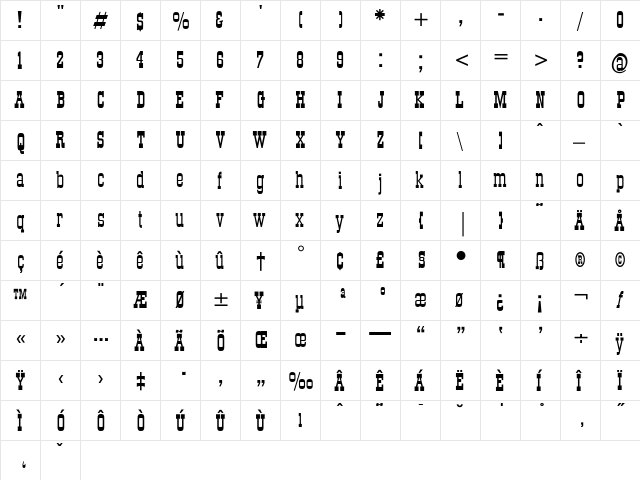
Stagecoach-Plain Regular
Design Context for Stagecoach-Plain Typeface
Stagecoach-Plain offers clean, dependable letterforms without strong stylistic allegiance, making it a practical choice for designers who need flexibility.
Pro Tip: Use Stagecoach-Plain in both headline and body roles to test its range before committing to a single application.